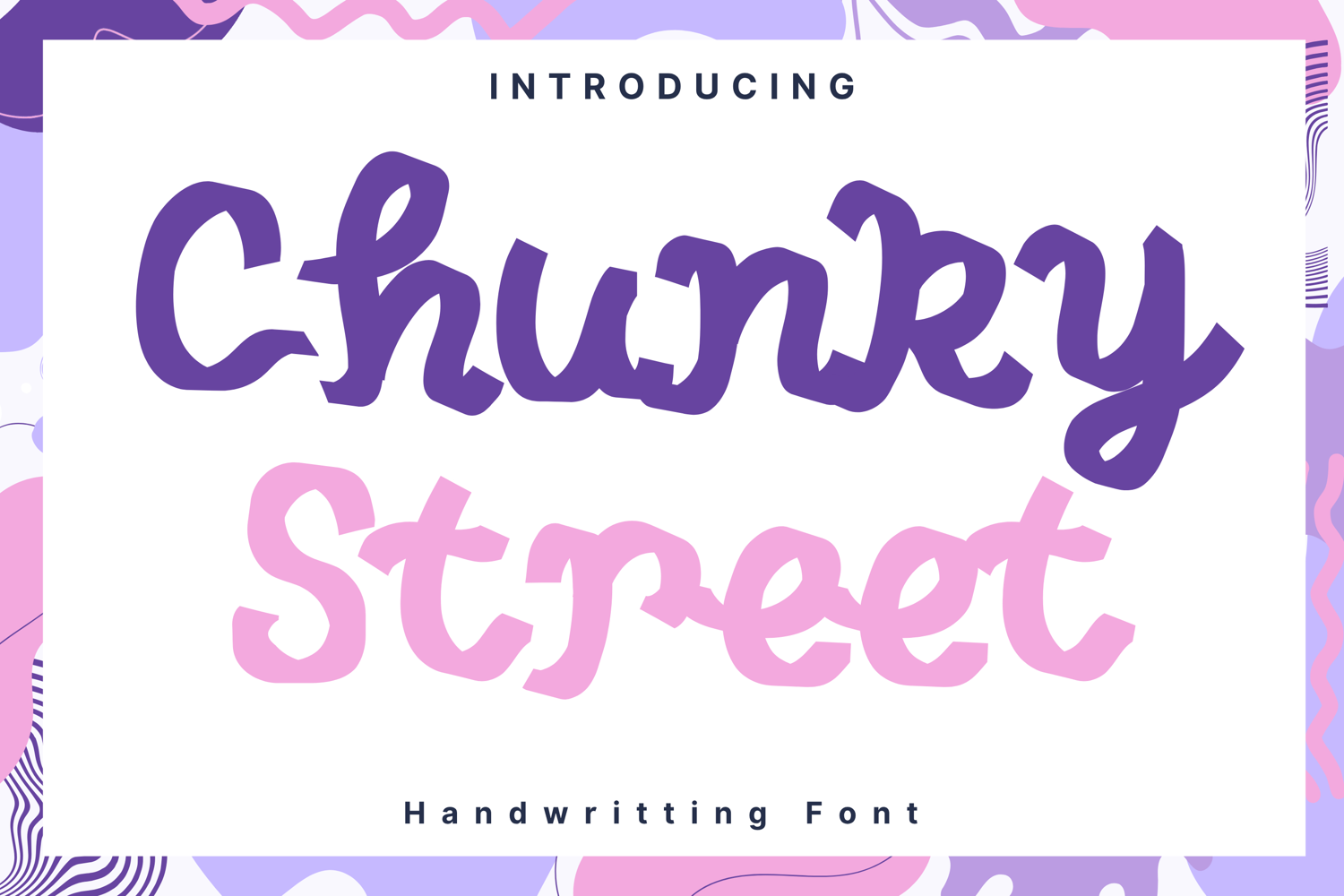
Chunky Street Style
Chunky-Street
Chunky Street is a playful and expressive handwritten font with bold curves and urban flair. Its quirky letterforms and chunky strokes make it perfect for creative branding, youth-centered designs, fun packaging, and vibrant social media content. This font adds a street-smart charm with a friendly twist.